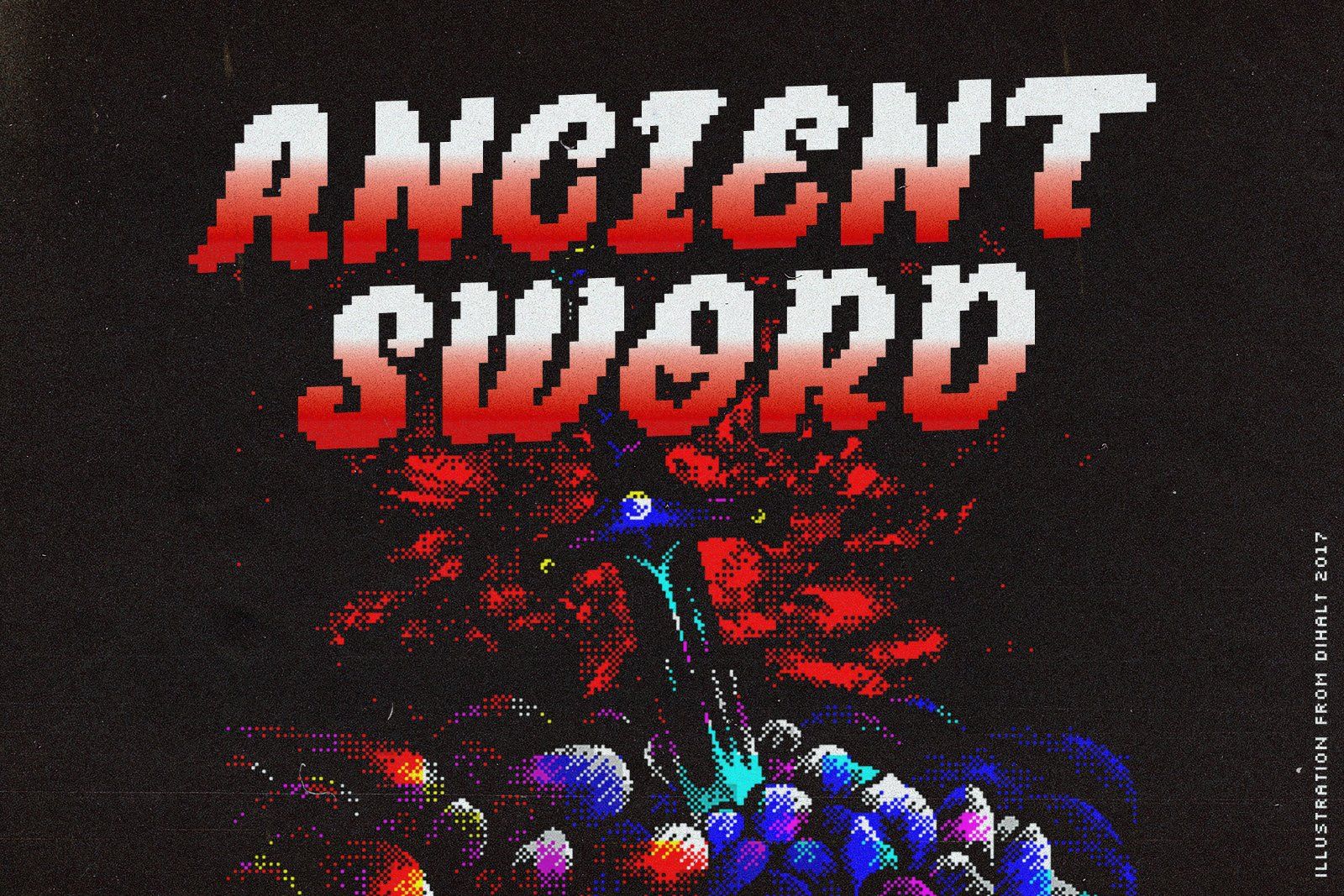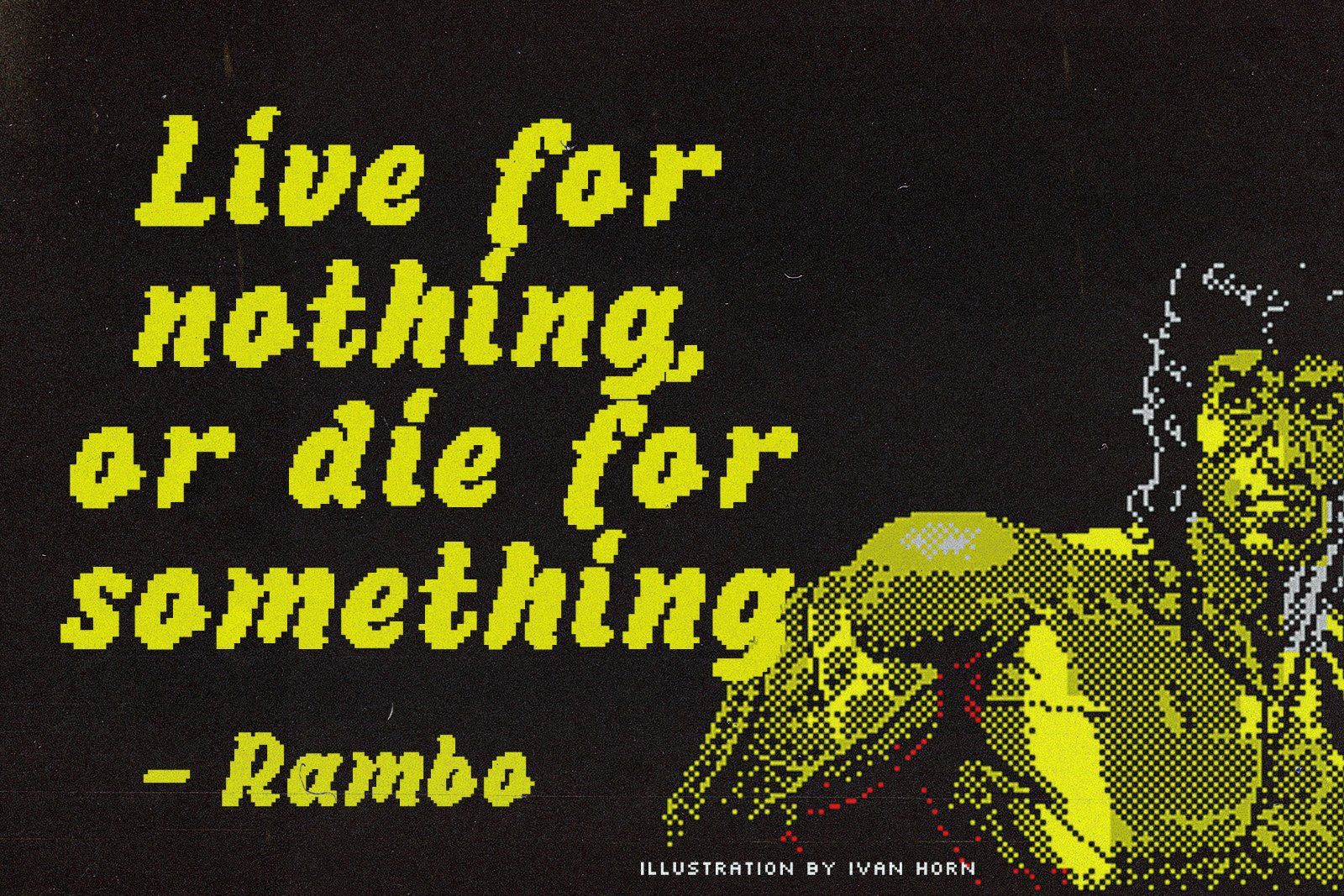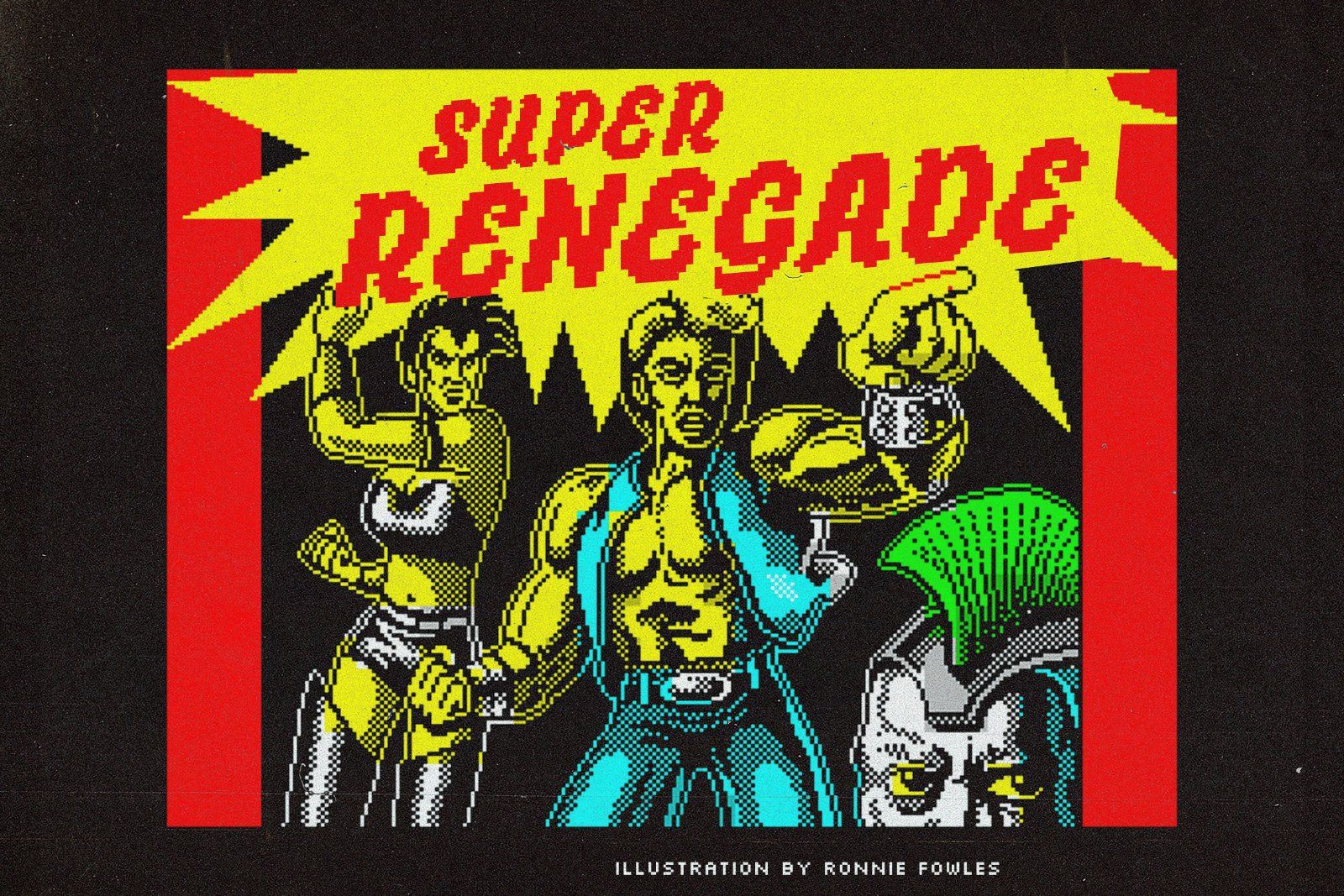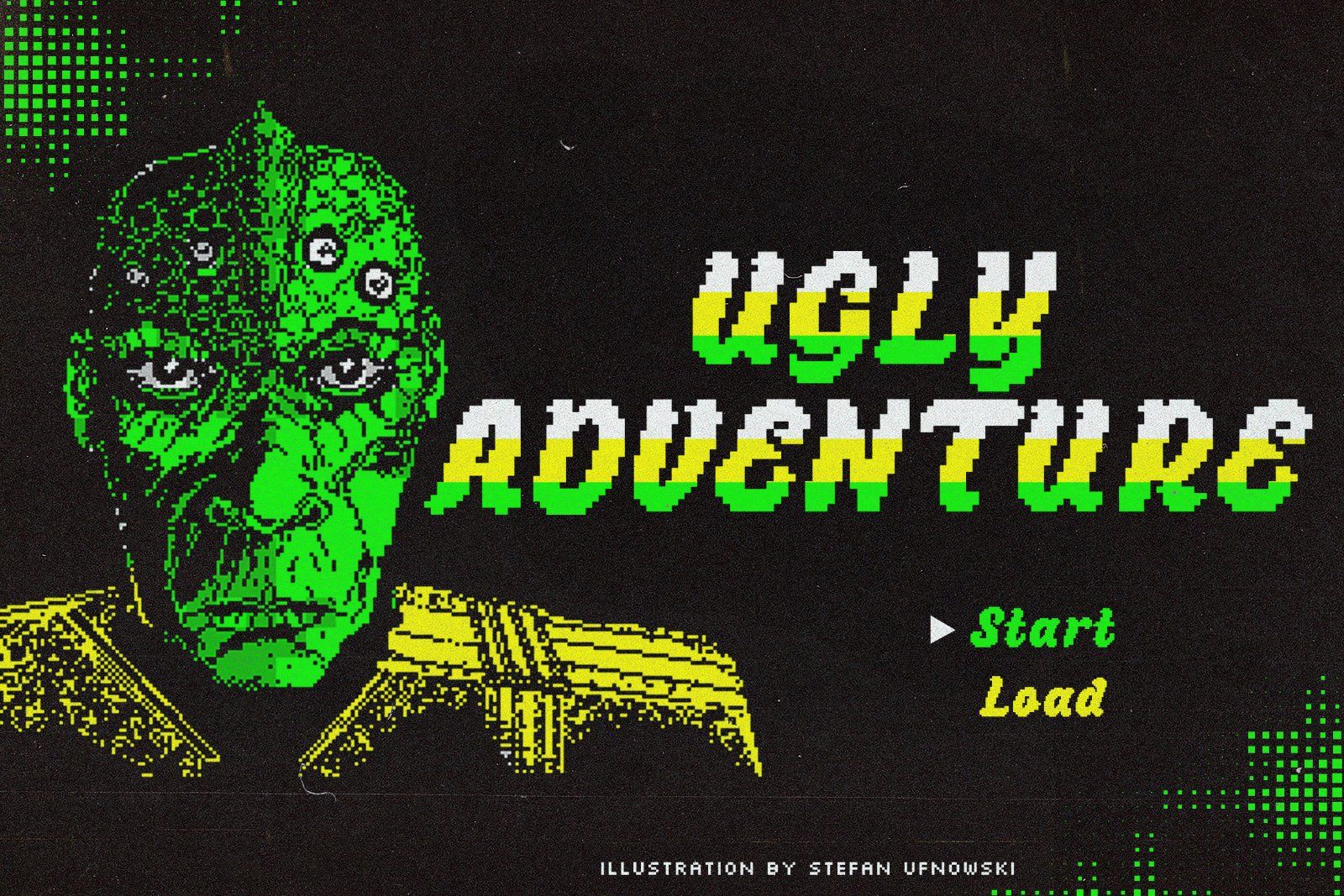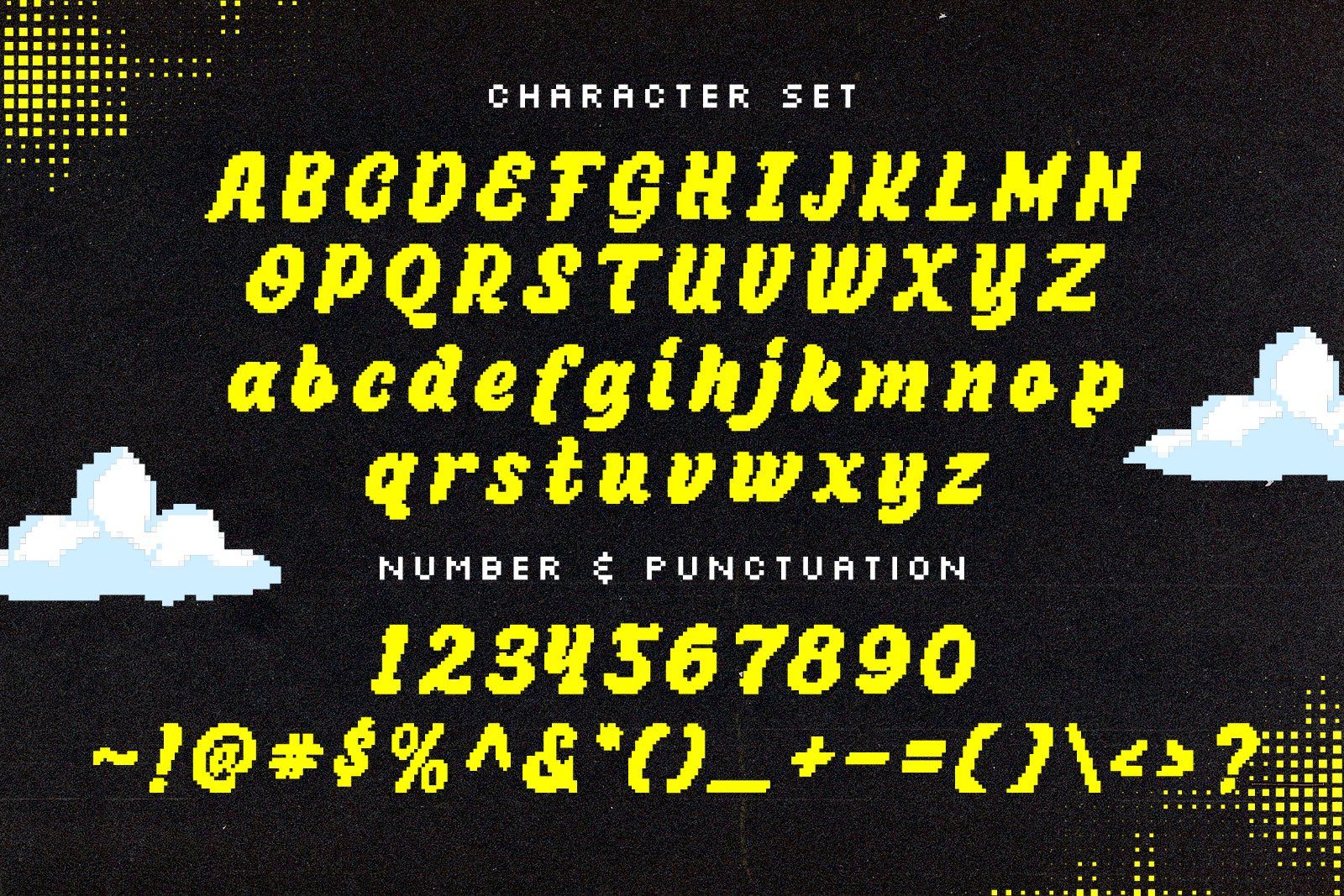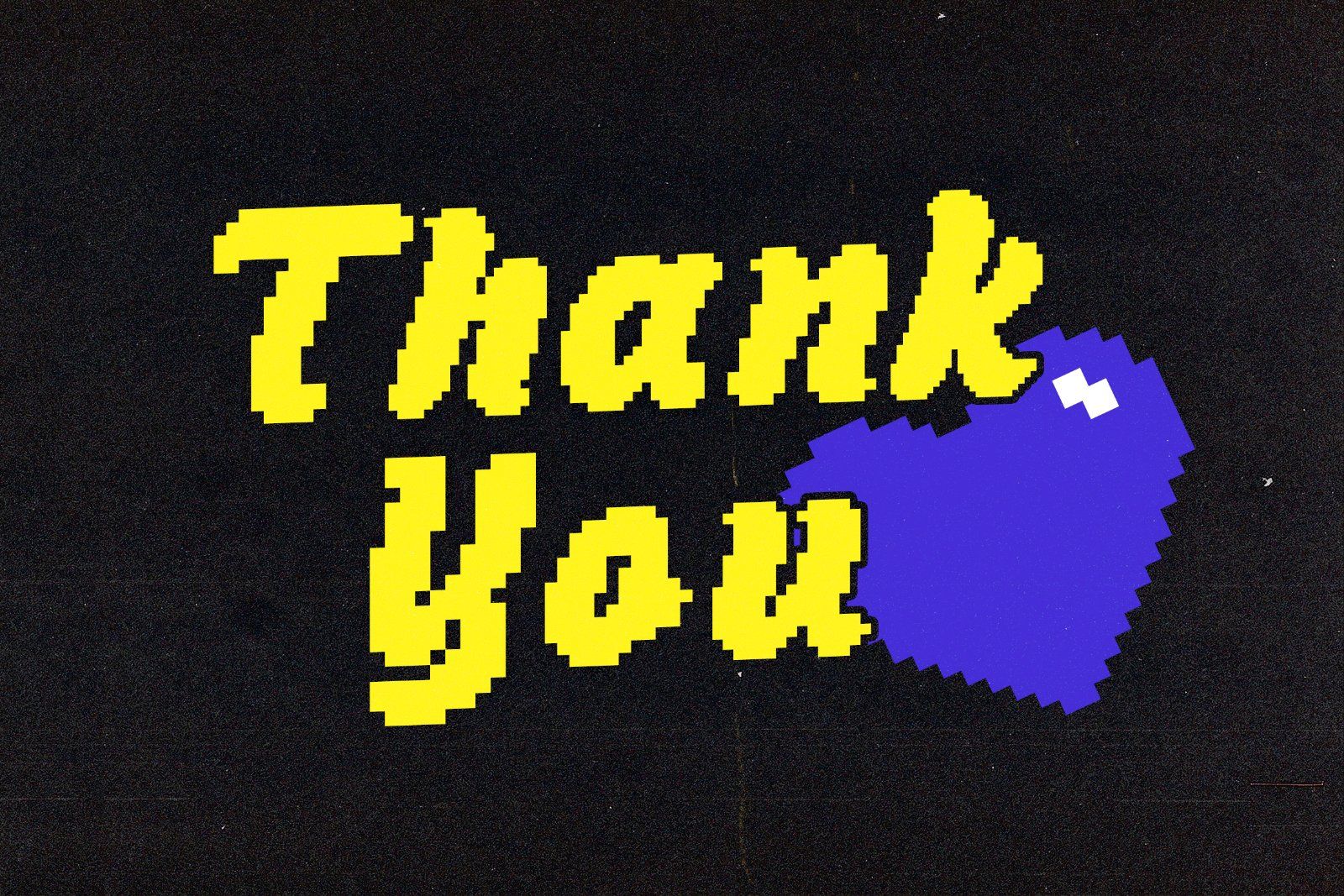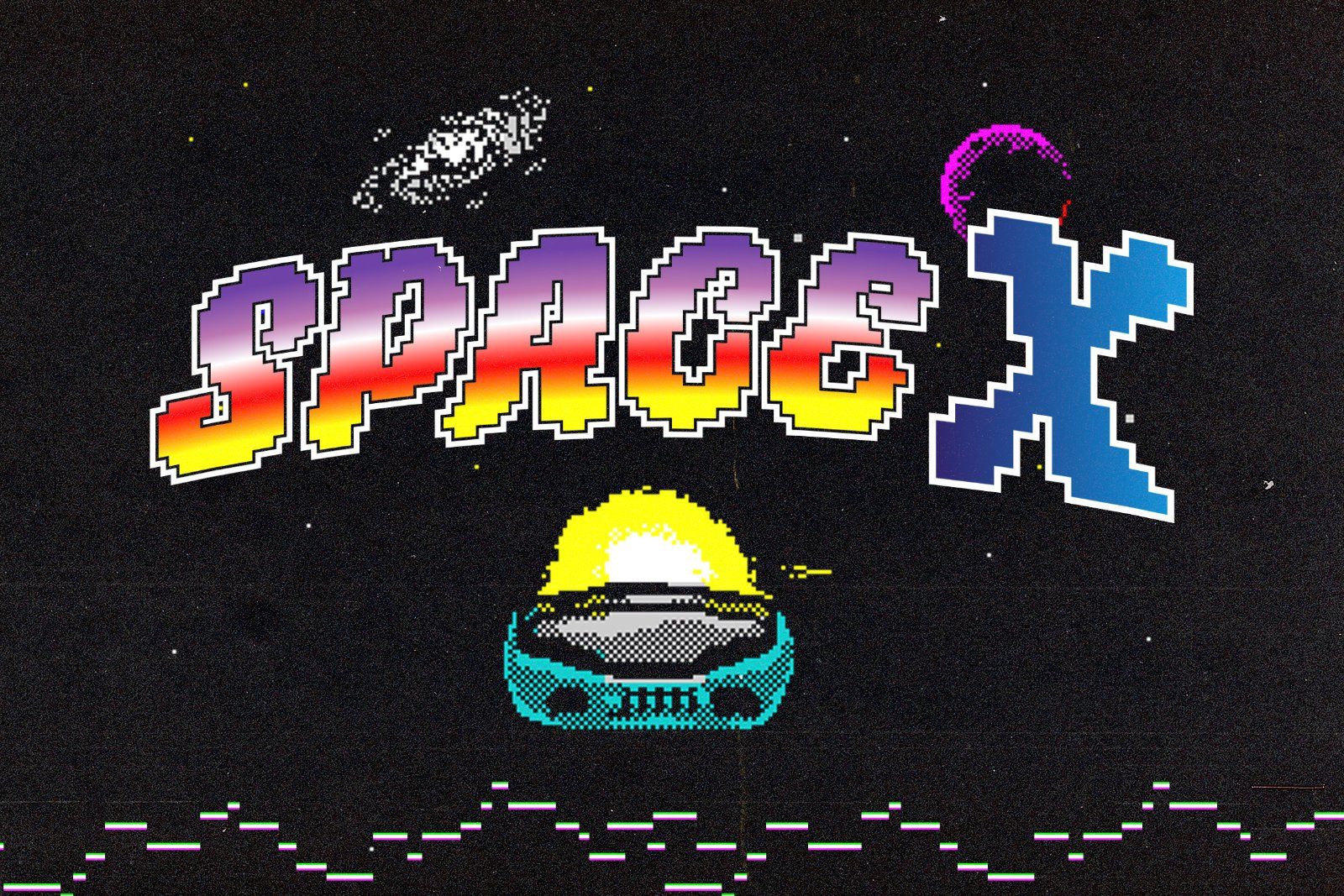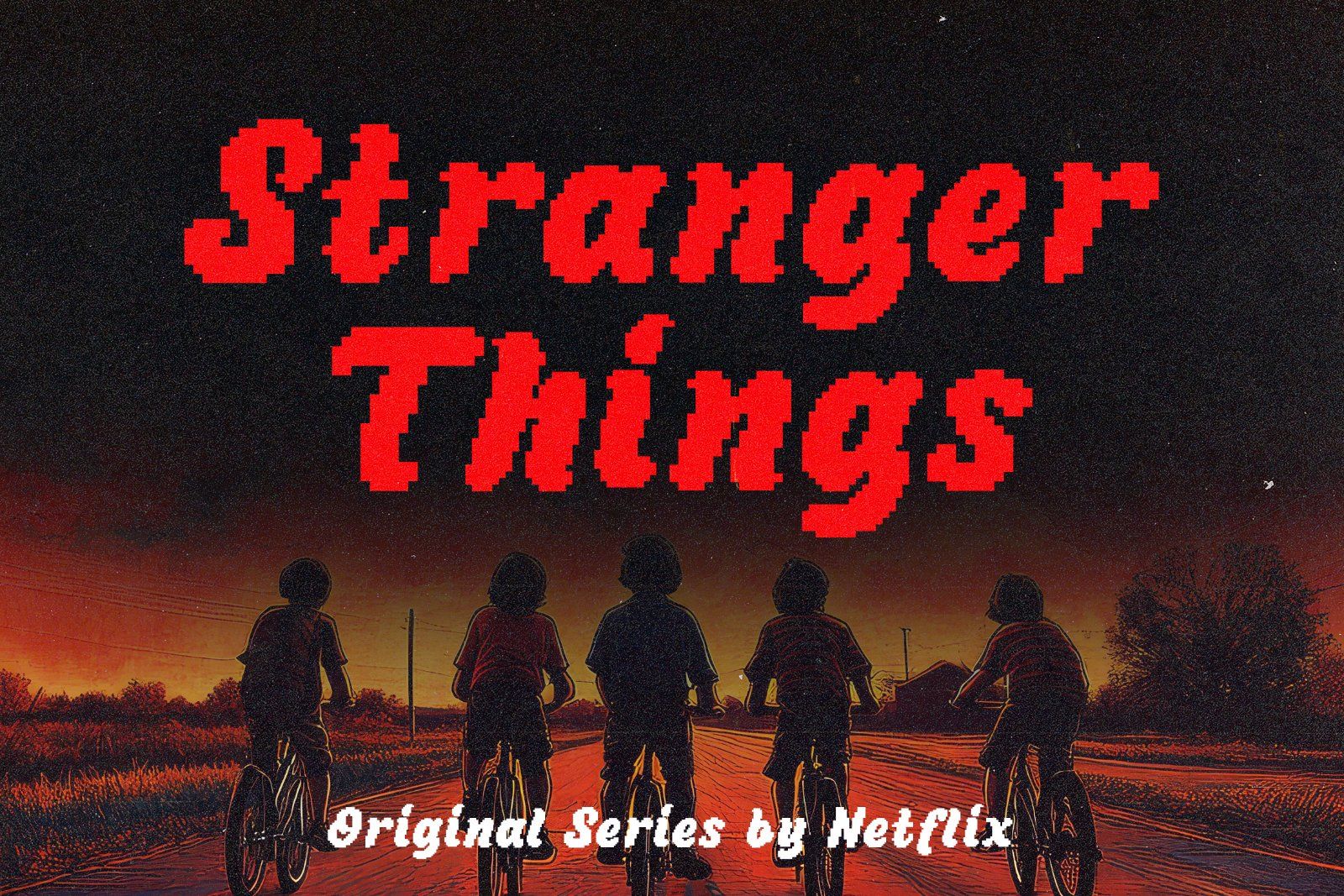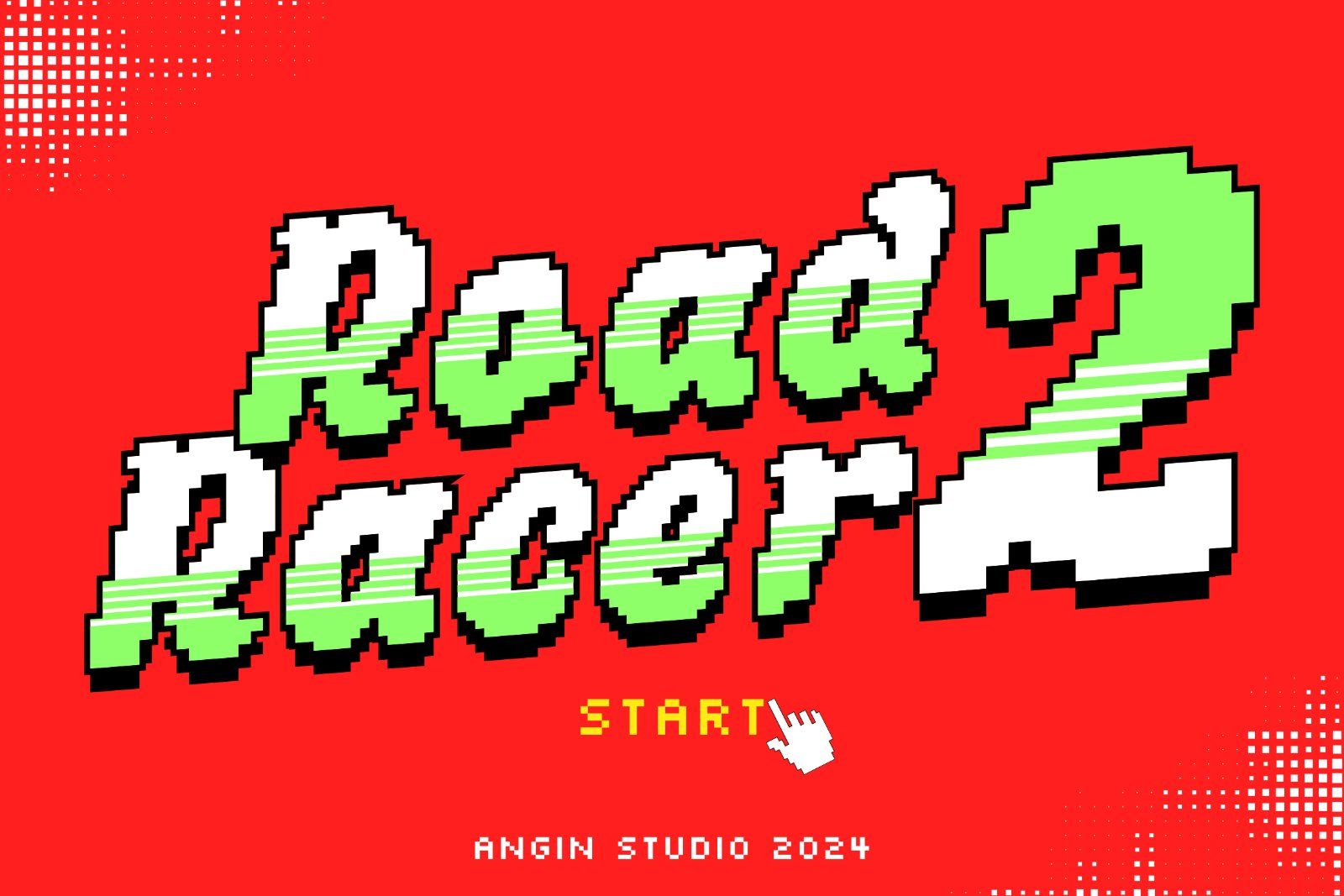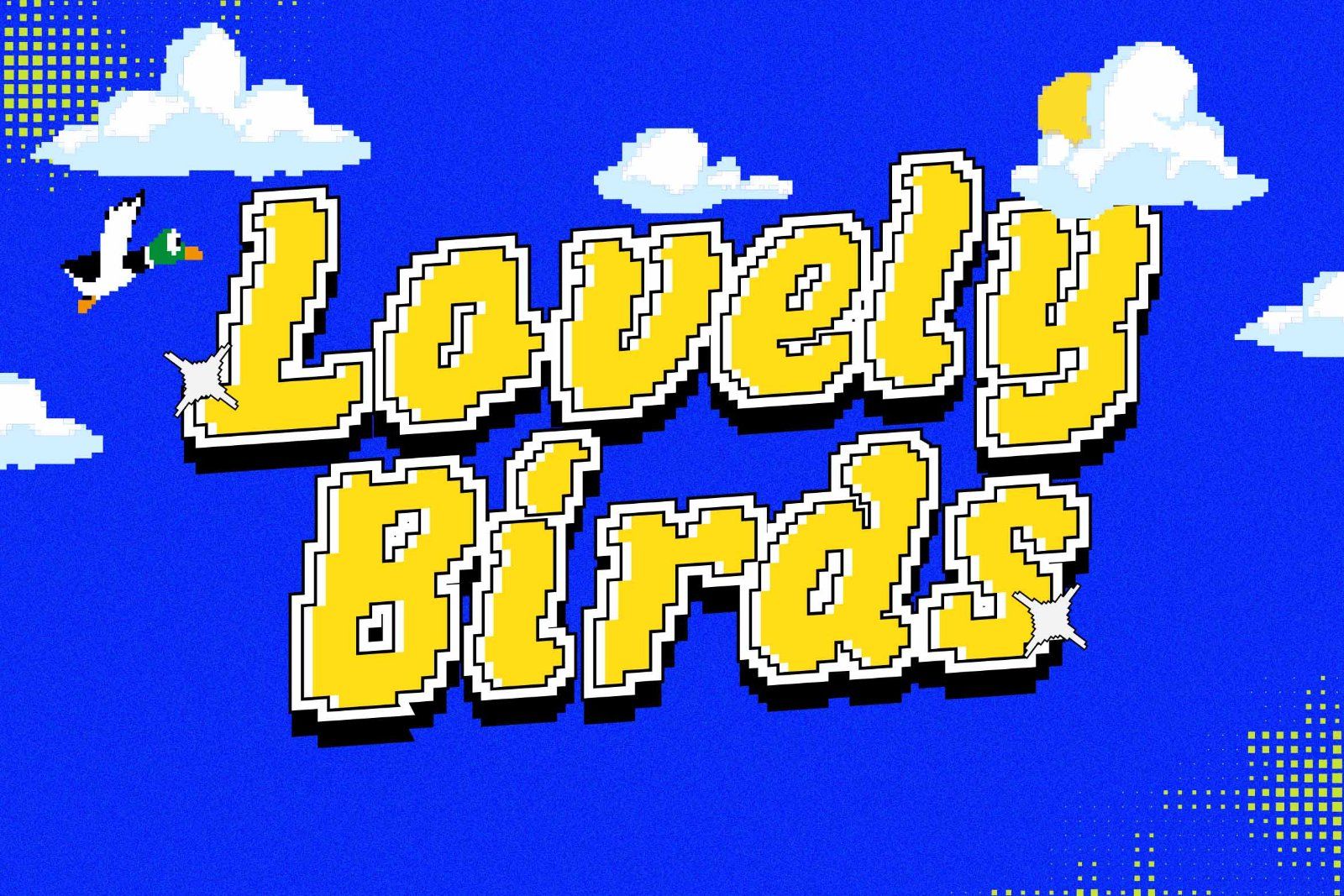
Step into the world of pixel perfection with Ohleys Pixelated, a bold and playful pixelated display font designed to bring back the charm of 8-bit / retro game nostalgia. Perfect for gaming projects, retro posters, and fun, creative designs, Ohleys packs a punch with its vibrant colors and pixel artistry.